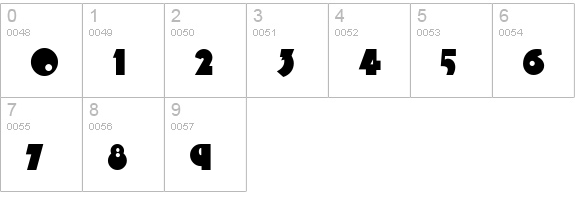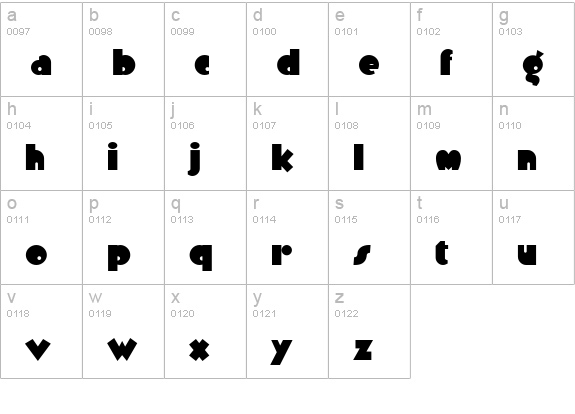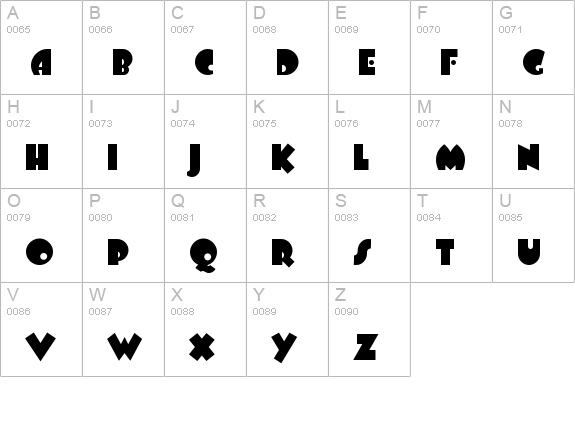
Arbuckle Remix NF Font Details
Arbuckle Remix NF font is a captivating and versatile typeface that combines classic elegance with a modern twist. Its sleek lines and stylish curves give it a sophisticated yet approachable look that is perfect for a wide range of design projects. Whether you're creating a logo, designing a website, or working on a branding campaign, Arbuckle Remix NF font will add a touch of class to your work. What's even better is that Arbuckle Remix NF font is completely free to download at FontsMarket.com. This means you can enhance your designs with this beautiful font without having to spend a dime. So go ahead and give Arbuckle Remix NF font a try today and see how it can elevate your creative projects to the next level.